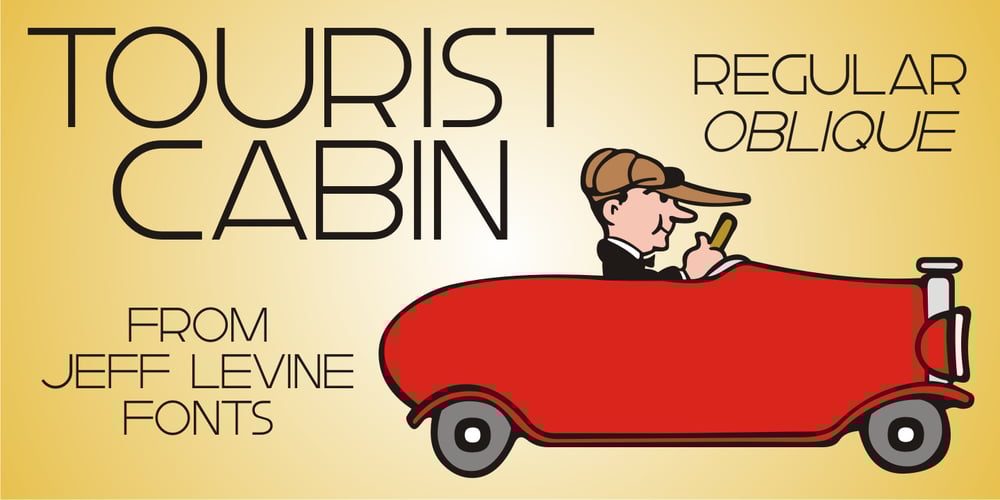
Tourist Cabin JNL
Tourist Cabin JNL font
Tourist Cabin JNL Font Family was designed by published by Jeff Levine. Tourist Cabin JNL contains 2 styles and family package options. During the heydey of automobile travel hundreds of motels, motor courts and tourist cabins sprung up along the roadways in order to offer weary drivers (and most often their families) rest with a night’s lodging. Tourist Cabin JNL takes the inline portion from the inline font Asbury Park JNL and creates this pleasant monoline design. The original design inspiration (from which the inline portion of the letters was taken) was a 1930s WPA (Works Progress Administration) Federal art project poster with the hand-lettered words “Work with Care”